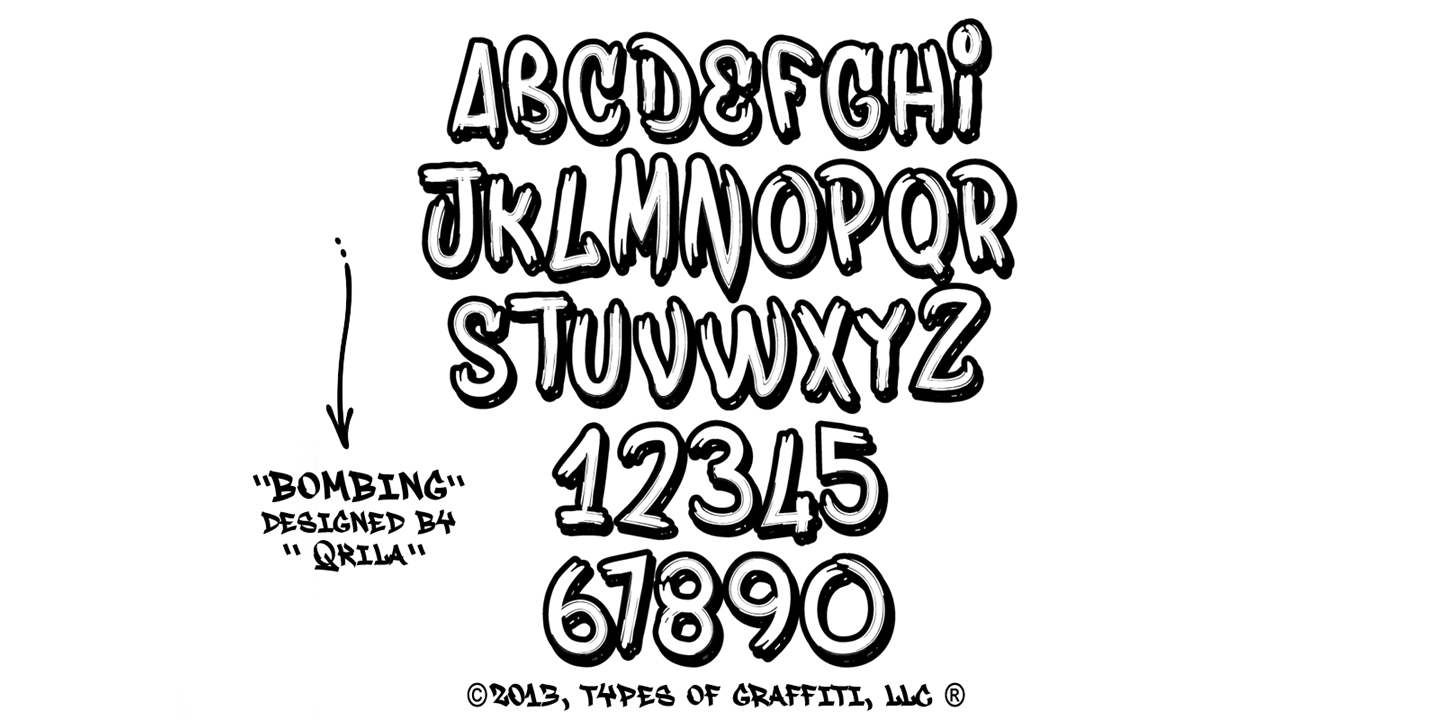
About Bombing®
Quite a popular graffiti font, as evident from over a million downloads that it has already received throughout the years. This font is suitable for book covers, cd covers, posters, packaging, merchandise, logos and much more.
Designed by: Qkila